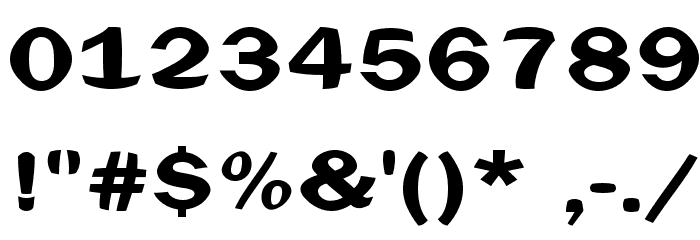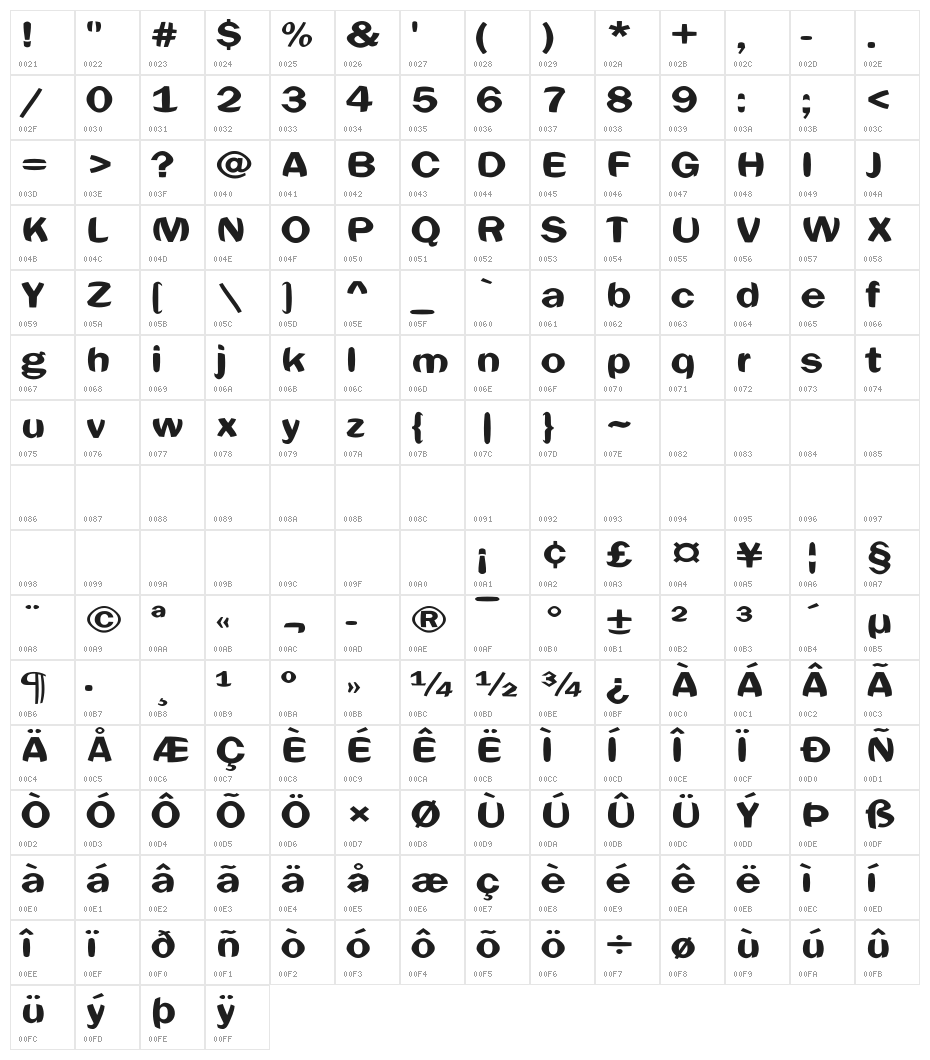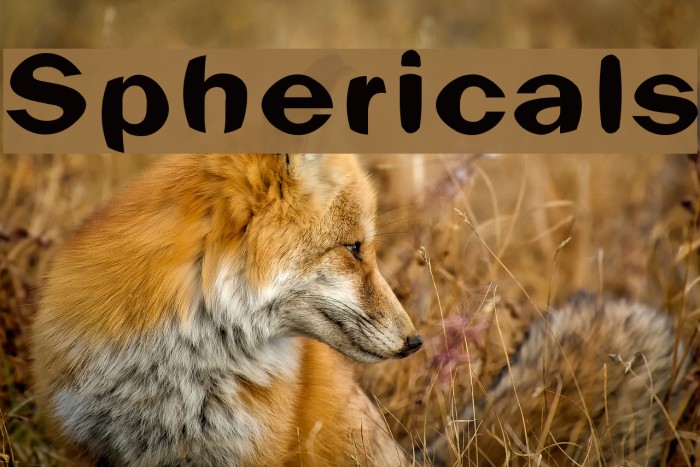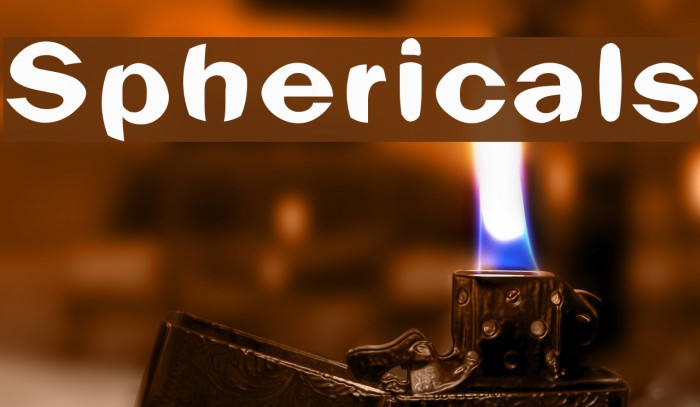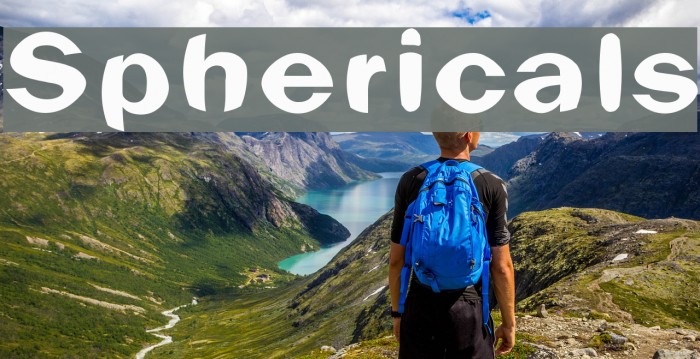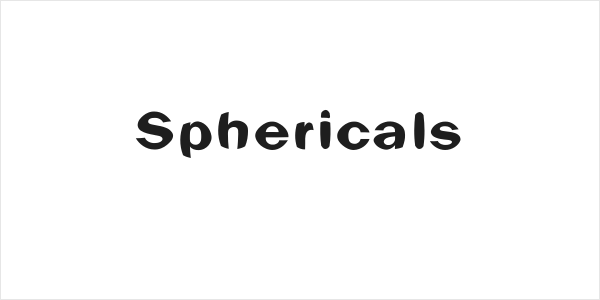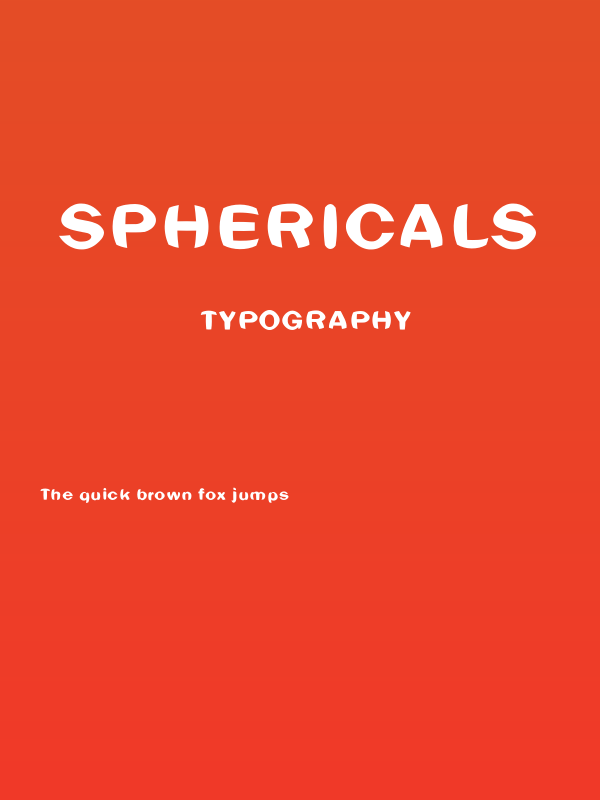
Sphericals Font
Sphericals Description
This font features a bold and playful style with rounded edges and a slightly whimsical appearance. The characters are thick and have a consistent stroke width, giving them a strong presence. The rounded terminals and curves create a friendly and approachable look, making it suitable for informal and creative projects. The uppercase and lowercase letters maintain a uniform height, contributing to a cohesive and balanced design. The numerals and special characters are designed to match the overall playful aesthetic, ensuring versatility across different uses.
| Proposed Projects | Ideal for children's books, playful branding, posters, and creative digital content. |